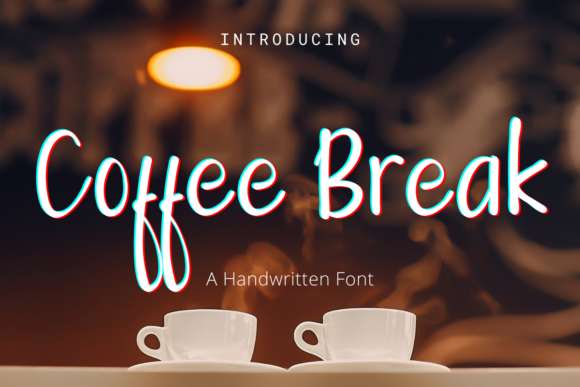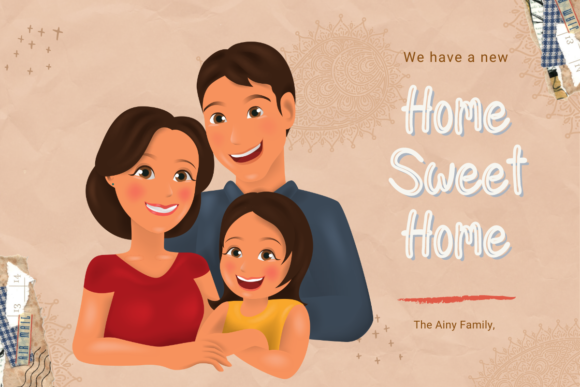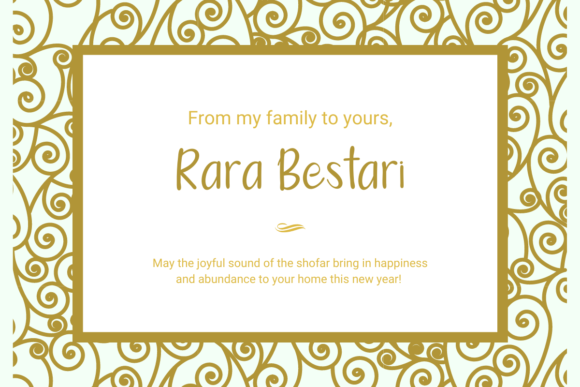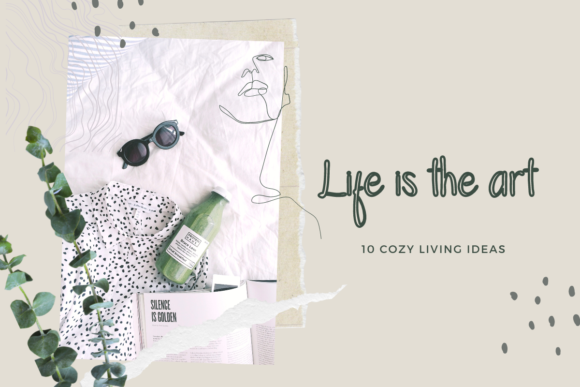
Coffee Break Font
About Coffee Break Font
Coffee Break is a cute, relaxed and friendly handwritten font. Its natural and unique style makes it incredibly fitting to a large pool of designs. The only limit is your imagination!